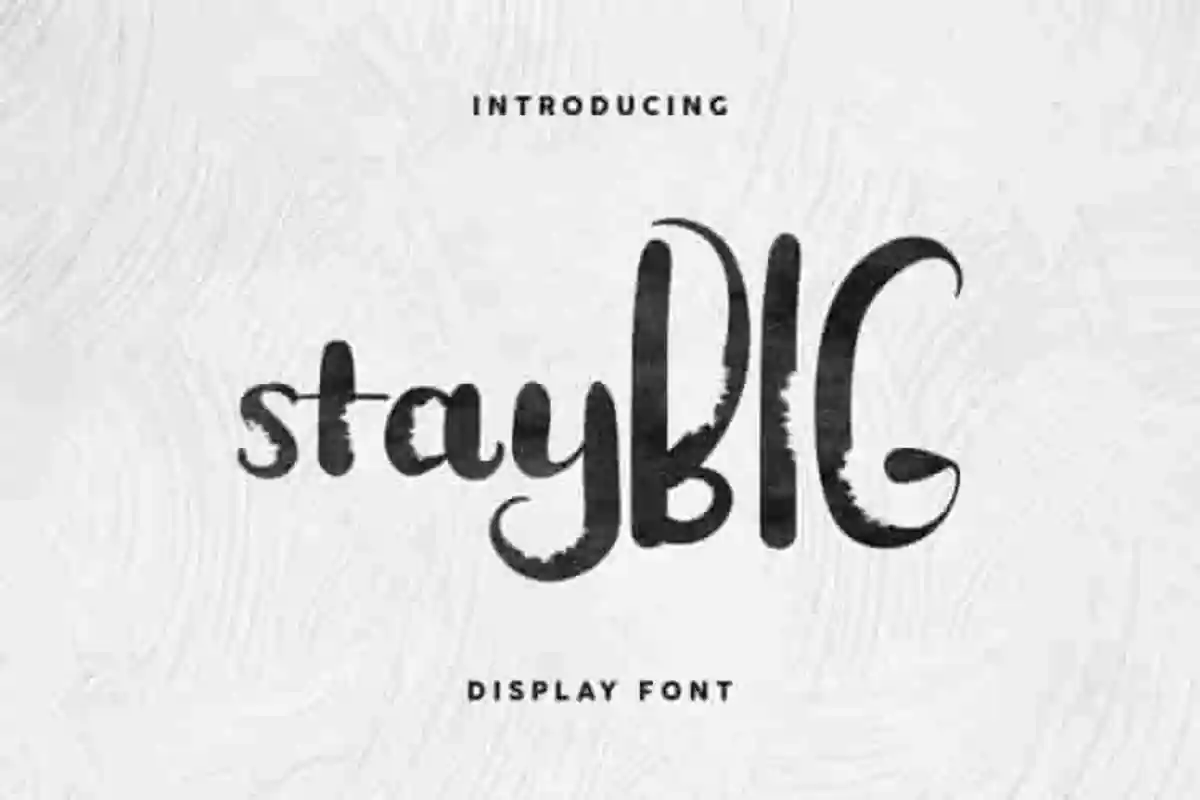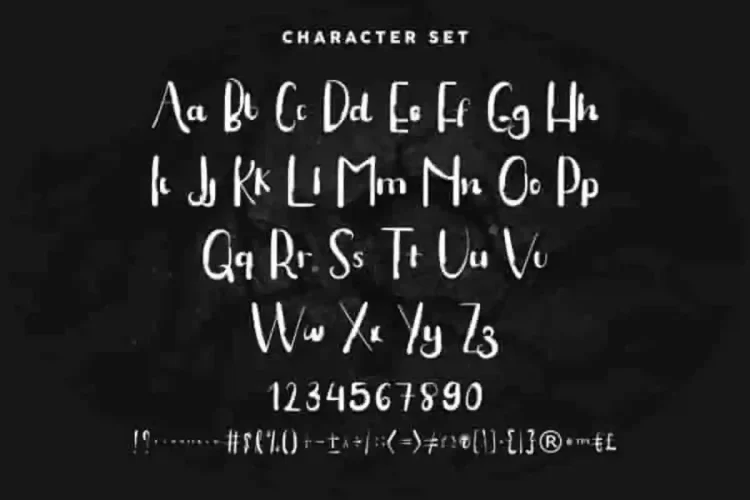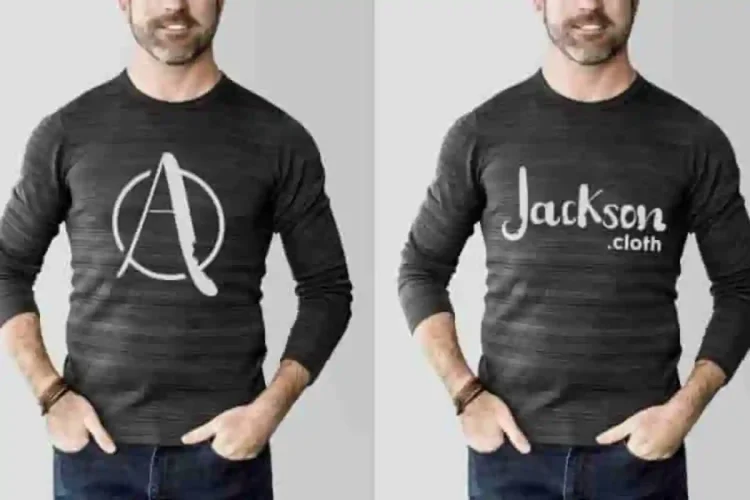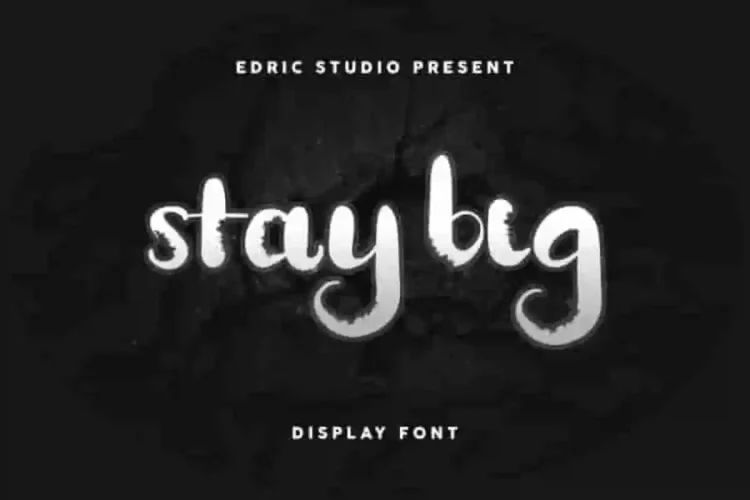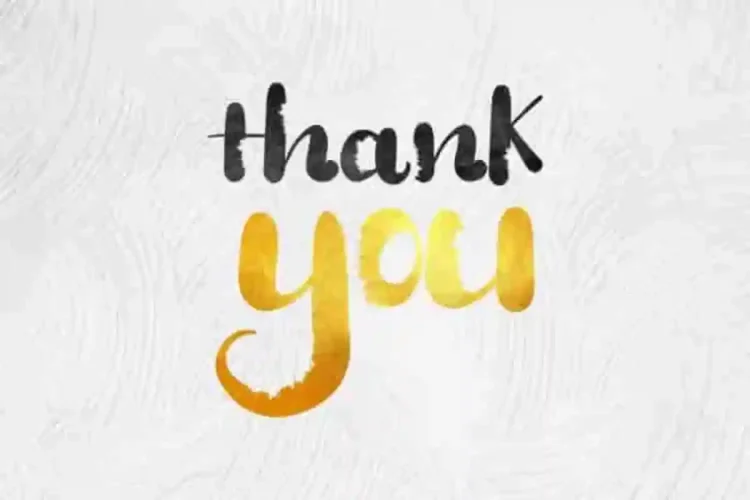
Stay BIG Display Brush Font
The newest font from our lovely artists : Stay BIG Display Brush Font
This is a display font, handcrafted from our Studio here in, Indonesia. The artists/designers of this beautiful tyeface is Saila and Sarah Suci.
Stay BIG Display Script Font is an exclusive brush script typeface with signature style. This font has a stunning characters set, perfectly managed with well spaced and kerning. The theme style of this font will horror,  vintage, grunge, mysterious and classic style.
Stay BIG Display Script Font will be great for any projects (with exntended license) including : branding, logo, stationery, business card, signage, flyer, brochure etc.